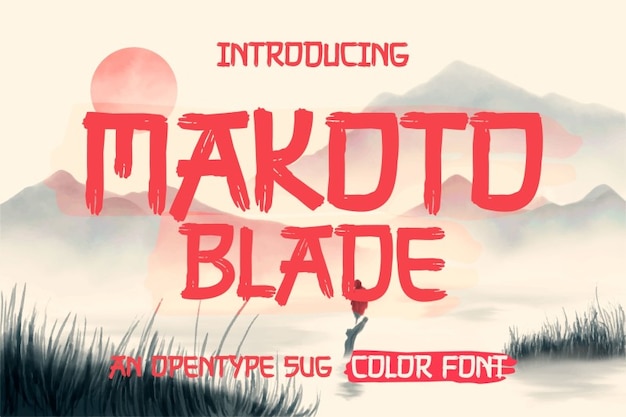
Makoto Blade is a bold, razor-sharp font inspired by the precision of samurai swords and the fluid strokes of Japanese calligraphy. Each character carries the strength and elegance of ancient Japan, blending tradition with a modern edge. Perfect for warrior-themed designs, branding, and dramatic visuals, Makoto Blade strikes with power, honor, and artistic finesse